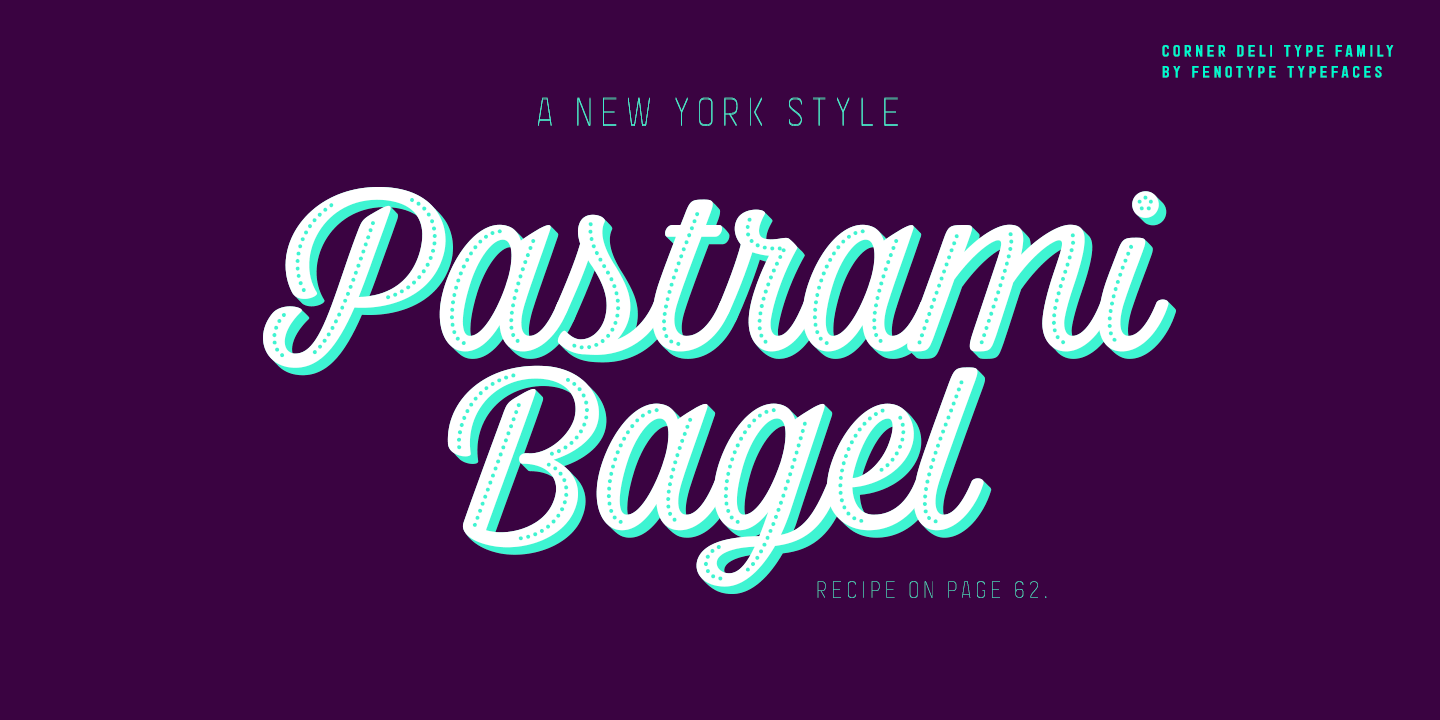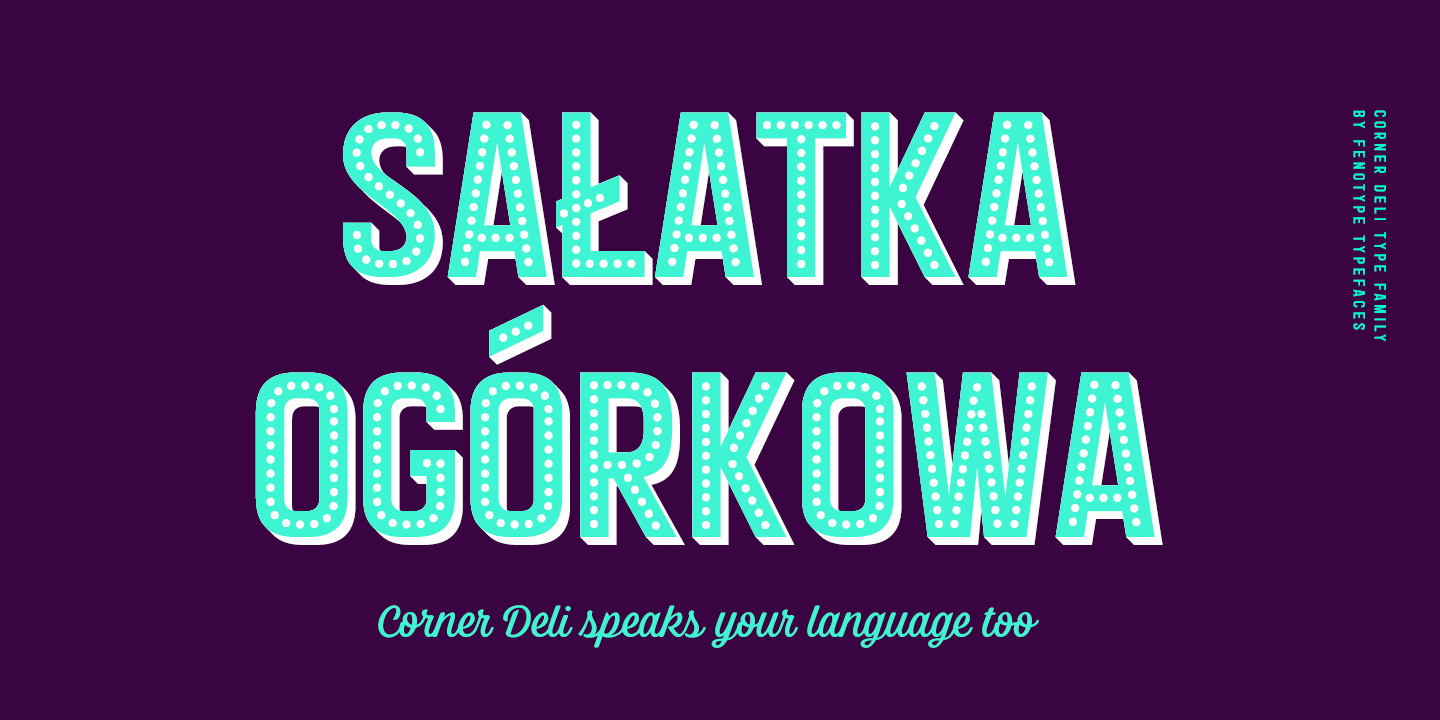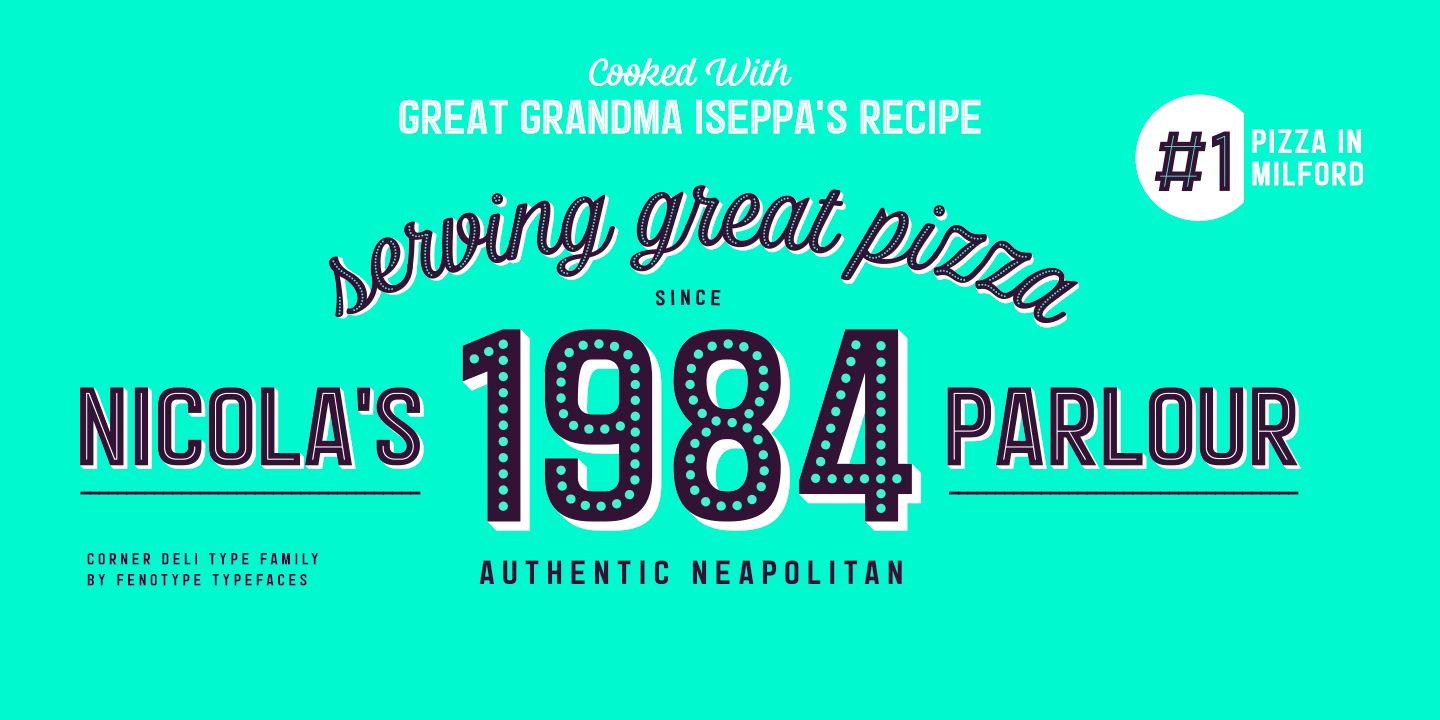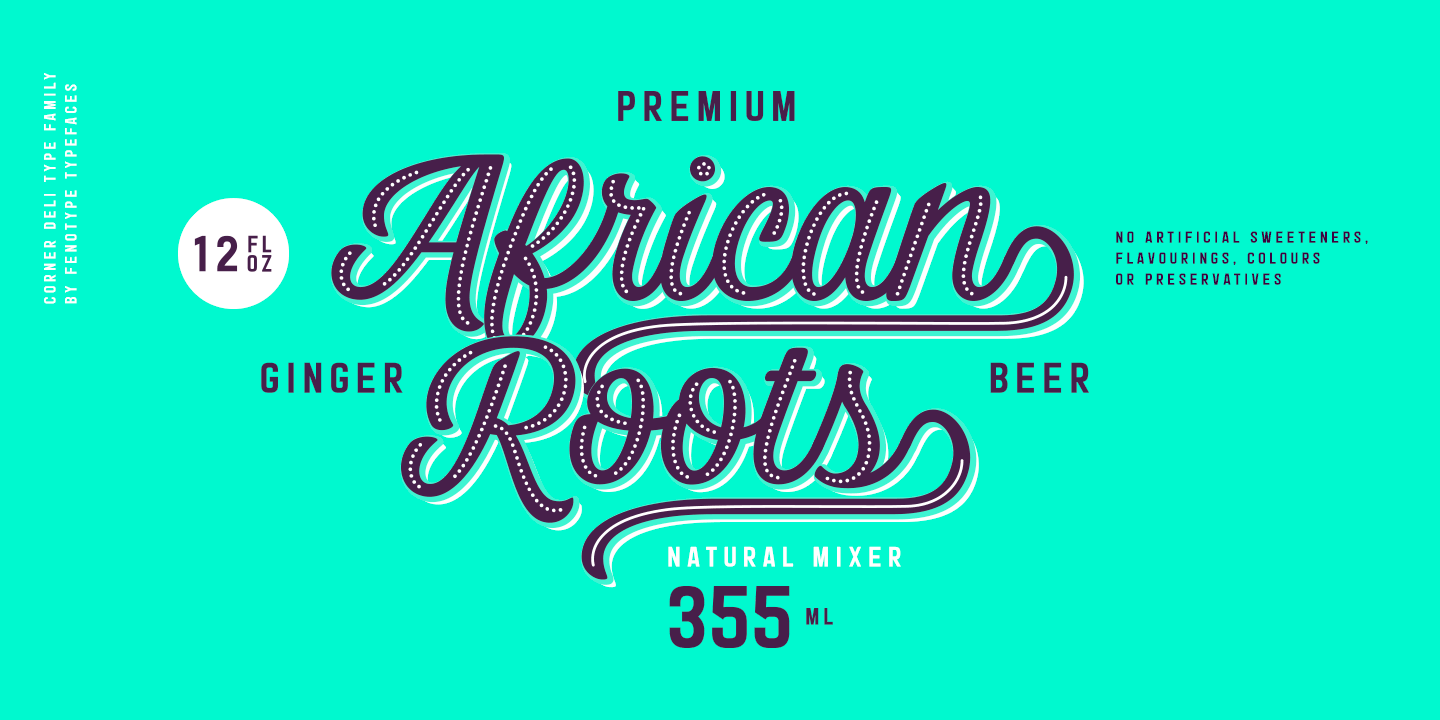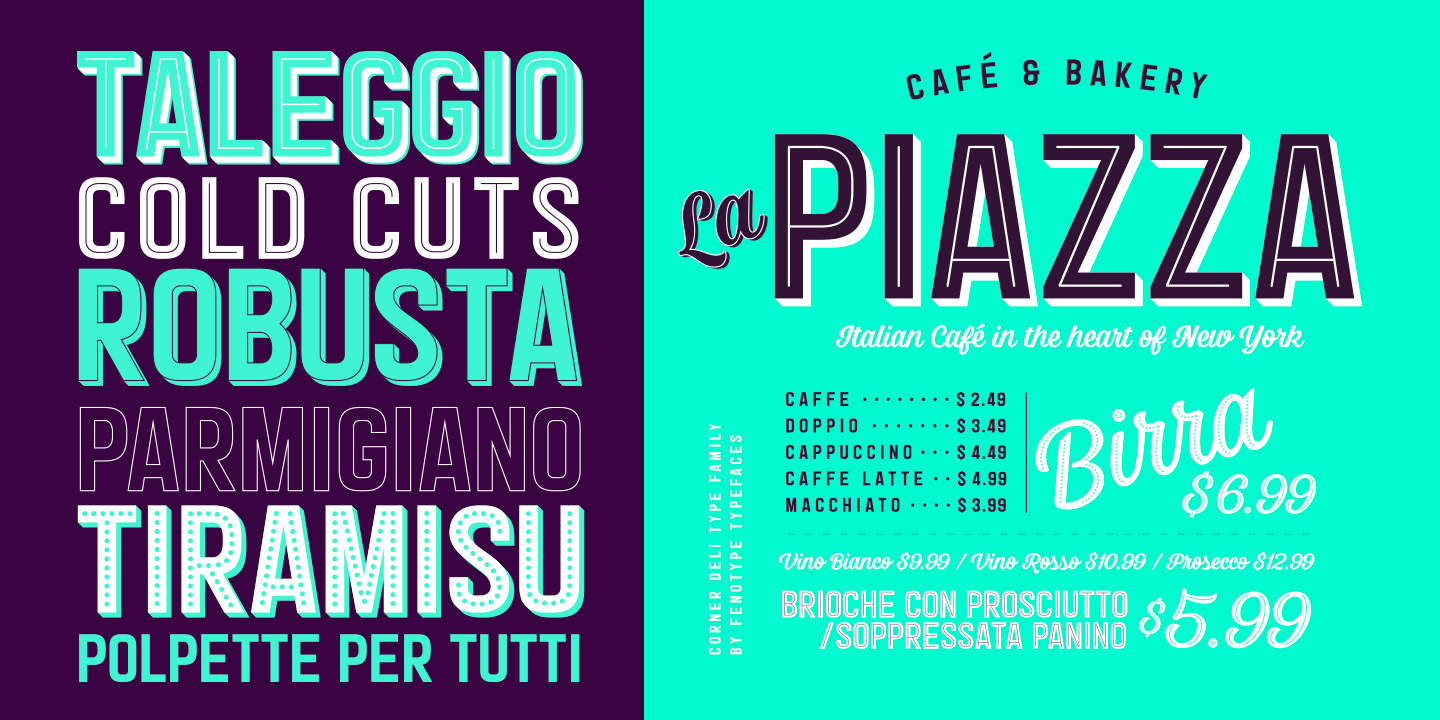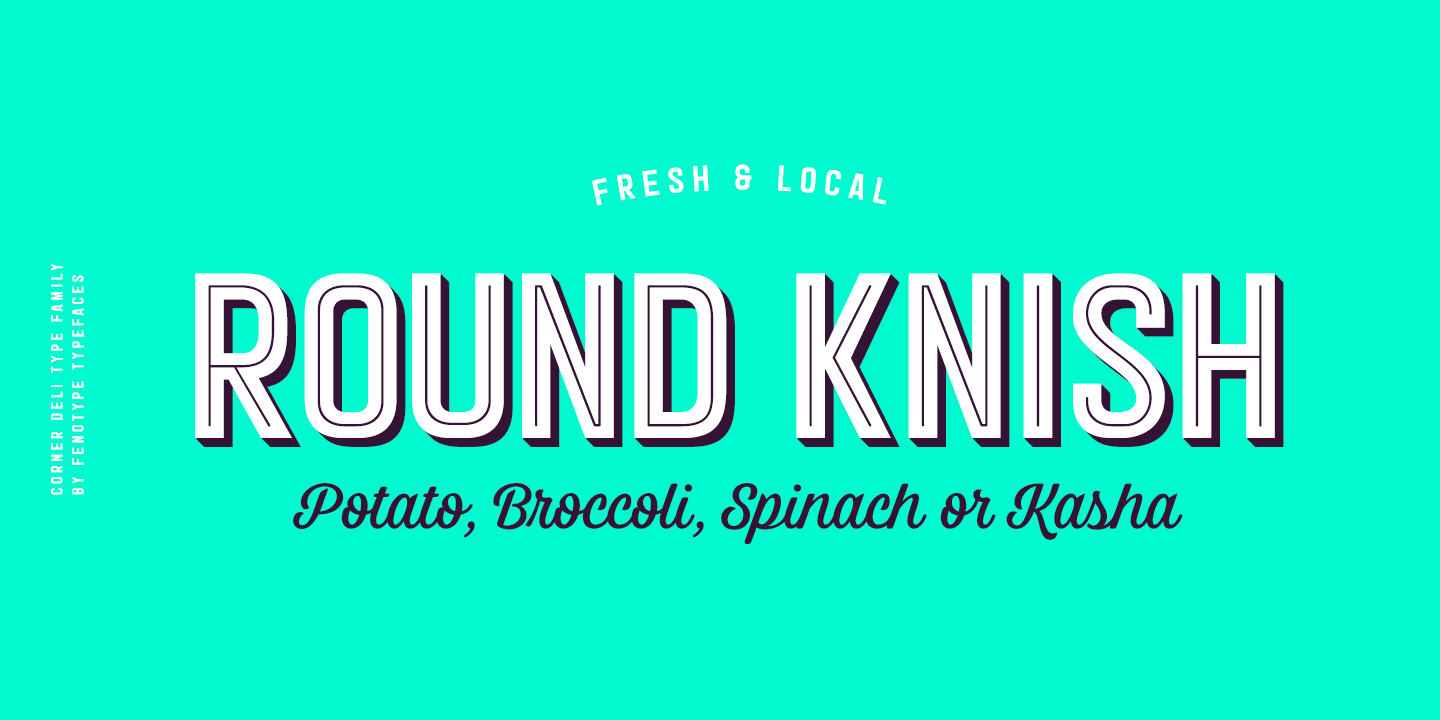
Corner Deli is a layered script & sans pack inspired by American commercial sign culture. Corner Deli has three base fonts and four layer options for each + there is a set of extra end swashes for Corner Deli script and layers for them too. Corner Deli…